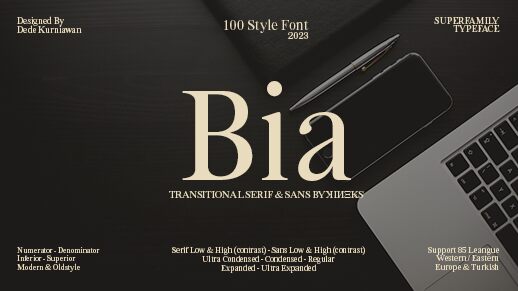
Bia Serif High is a Bia family font, designed by Bykineks. It has a luxurious and elegant serif style that is striking in its boldness. This transitional serif font stands out with its sophisticated appearance making it ideal for creating an opulent aesthetic. It can support 85 languages and so it’s perfect for worldwide communication.
Bia Serif High can be downloaded as a free to use personal font, and comes with several variations such as regular as well as expanded styles which are good for flexible design projects. Whether you’re thinking of skincare branding or maybe designing the wedding invitation cards, this font will give an outstanding sense of professionalism and elegance like no other.